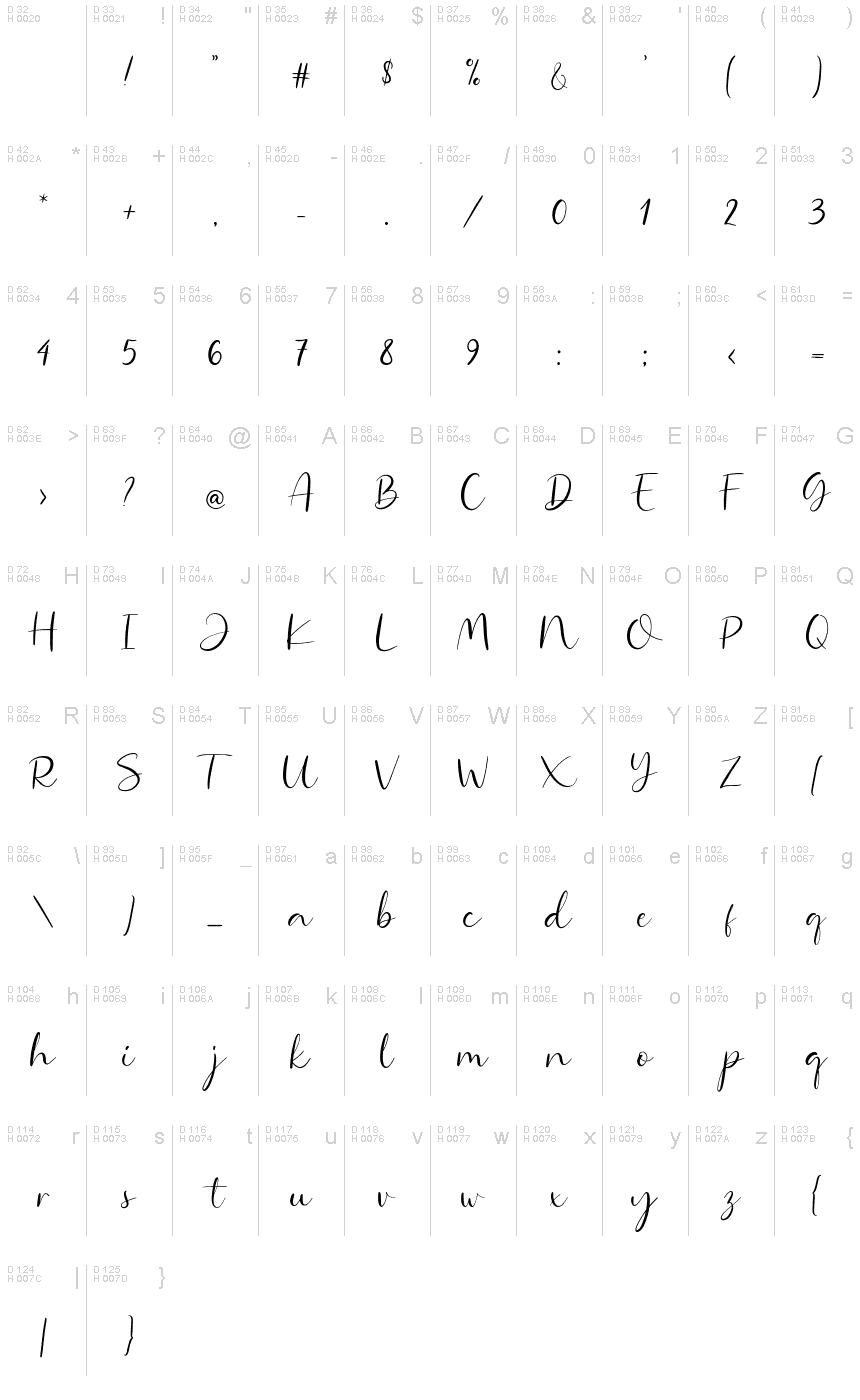
Amatley
Amatley is a charming, light-weight handwritten font designed by Paily Studio. Its delicate curves and elegant strokes make it perfect for adding a personal touch to your creative projects. The unique style of Amatley exudes warmth and playfulness, making it ideal for greeting cards, social media graphics, or invitations. This font typeface adds an organic touch to any design project, from branding materials to wedding invitations. It's easy to read and perfect for adding a personal touch to any project you are working on!